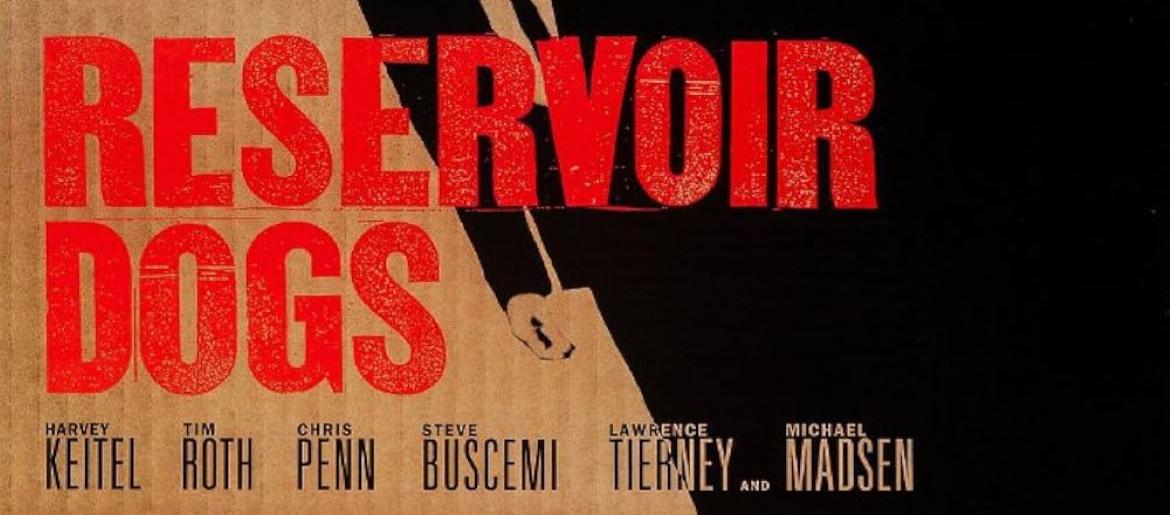
Reservoir Dogs Font
The Reservoir Dogs font is as sharp and gritty as Quentin Tarantino’s legendary debut film. Bold, unapologetic, and confrontational, the typography used in the title card reflects the movie’s raw energy and criminal underworld aesthetic. It’s not polished Hollywood glam—it’s rough around the edges, much like the characters themselves. The lettering resembles fonts such as ITC Machine Bold which carry heavy, block-like structures. These typefaces give off an intense, no-nonsense vibe, echoing the tension and violence at the heart of the story, matching Tarantino’s storytelling: stylish yet brutal, chaotic but meticulously crafted.
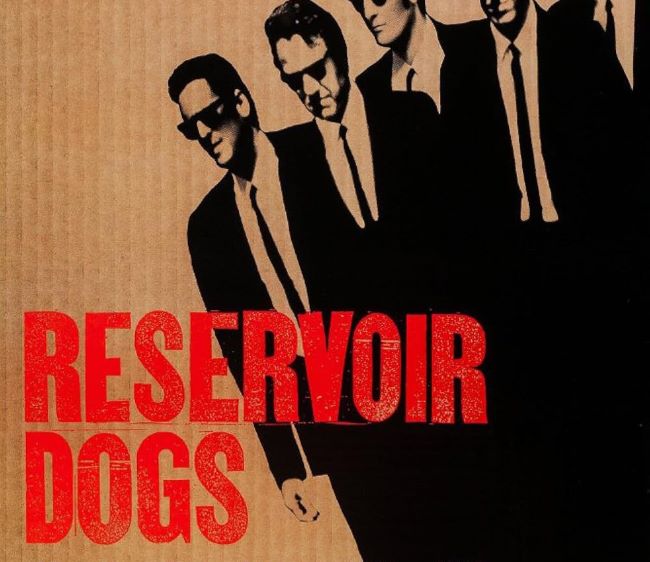
About Reservoir Dogs
Reservoir Dogs is a 1992 crime thriller written and directed by Quentin Tarantino in his feature directorial debut. Starring Harvey Keitel, Tim Roth, Chris Penn, Steve Buscemi, Lawrence Tierney, Michael Madsen, and Tarantino himself, the film follows a group of criminals whose diamond heist goes disastrously wrong, leading to paranoia about a police informant. Known for its nonlinear narrative structure, sharp dialogue, violence, and iconic soundtrack featuring 1970s hits, Reservoir Dogs premiered at Sundance Film Festival and became a cult classic, establishing Tarantino as a major filmmaking voice and revolutionizing independent cinema.